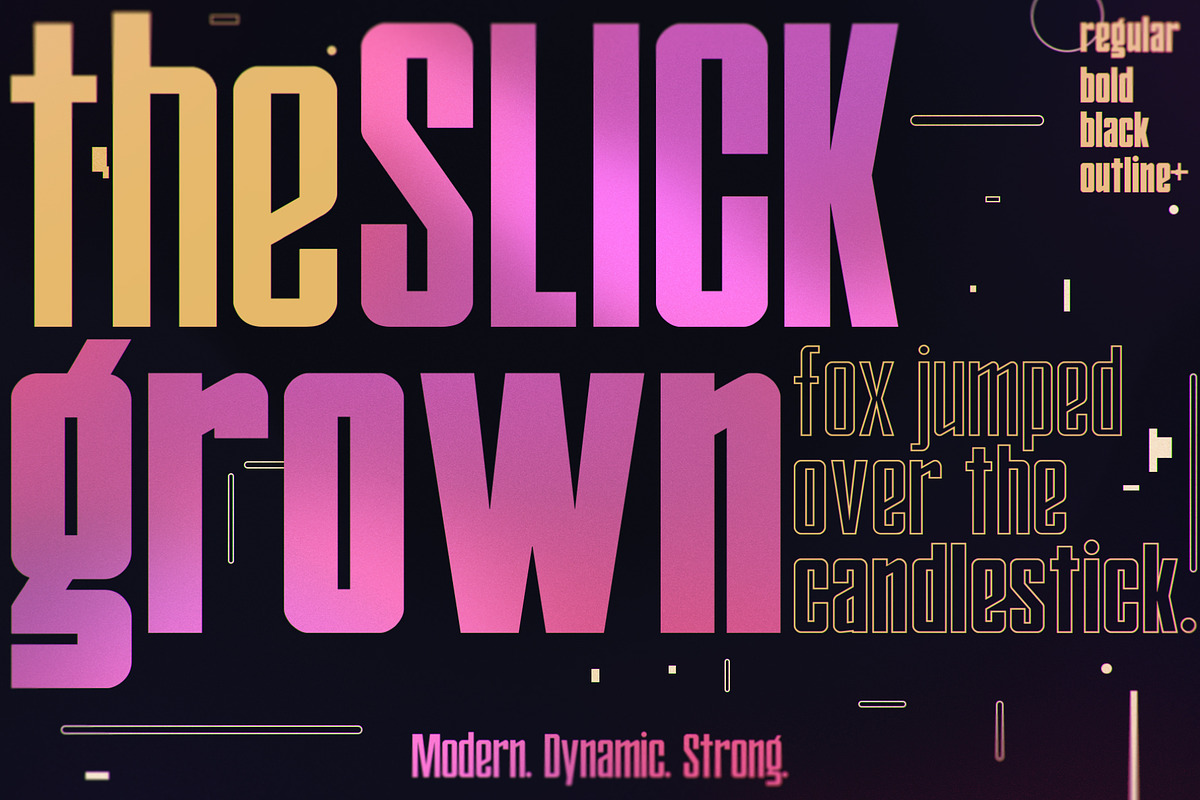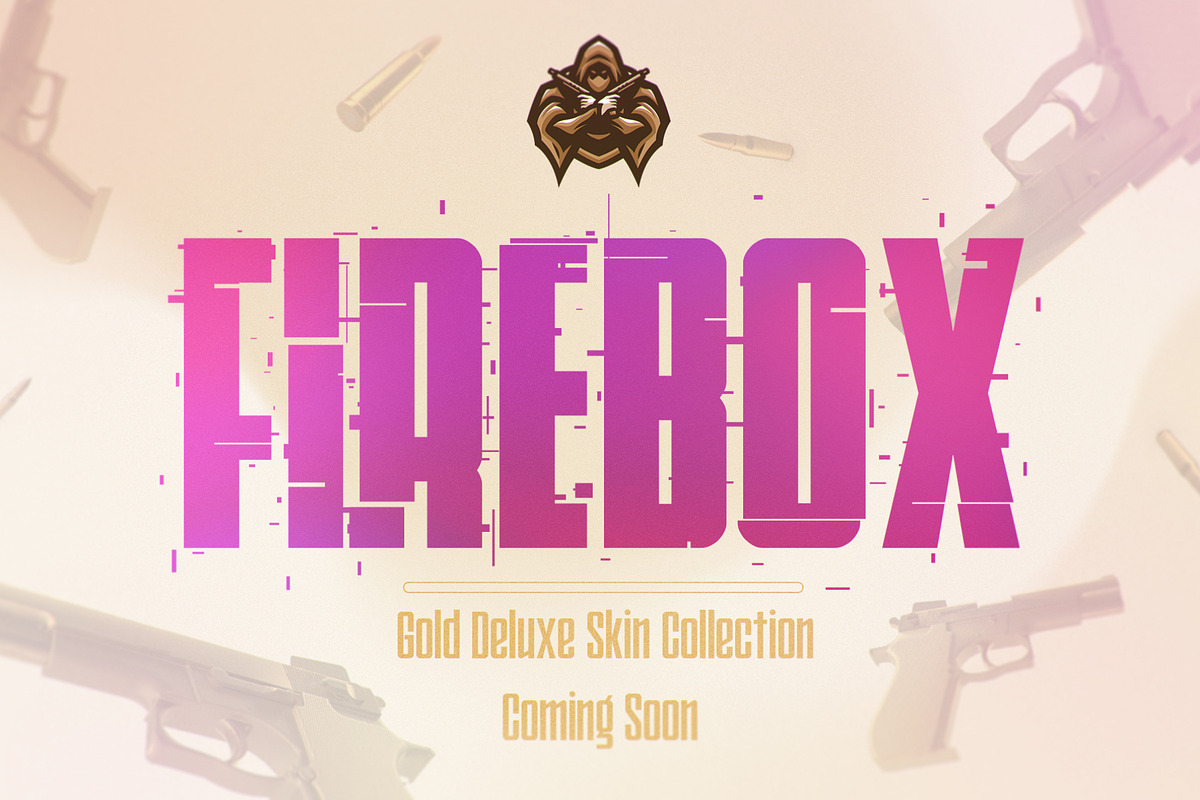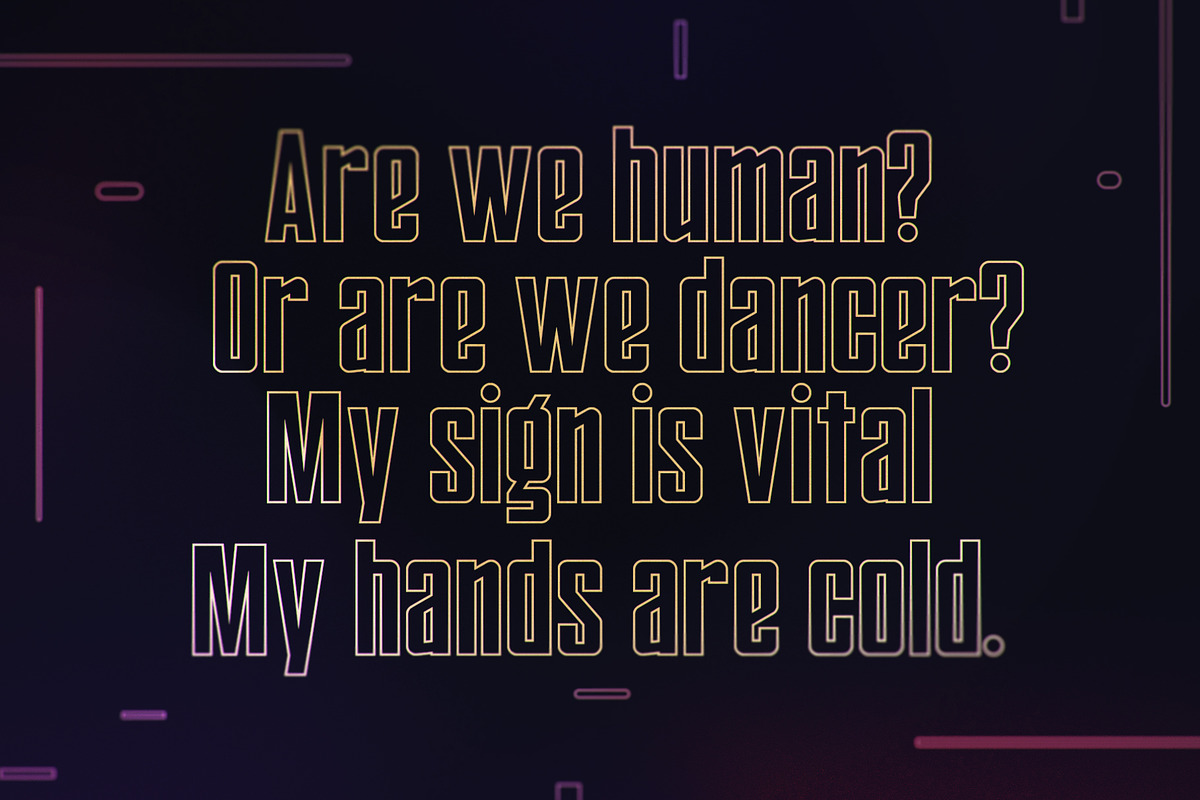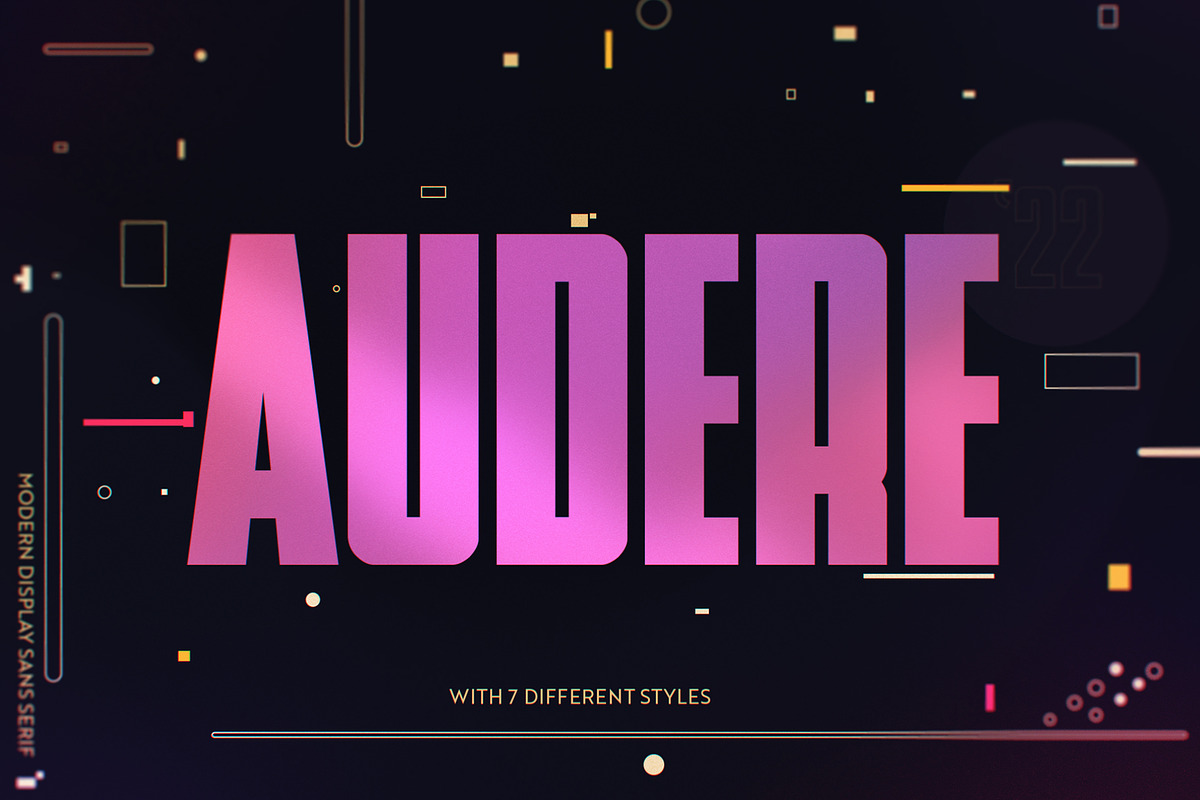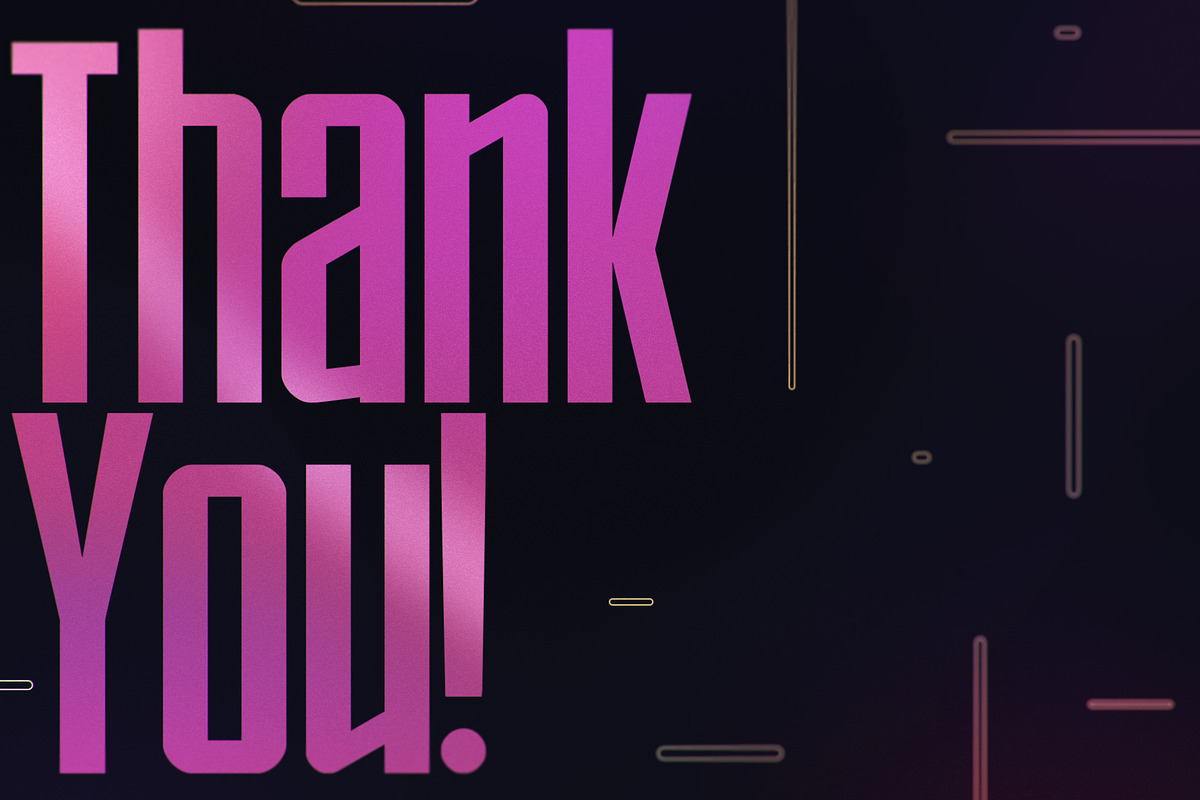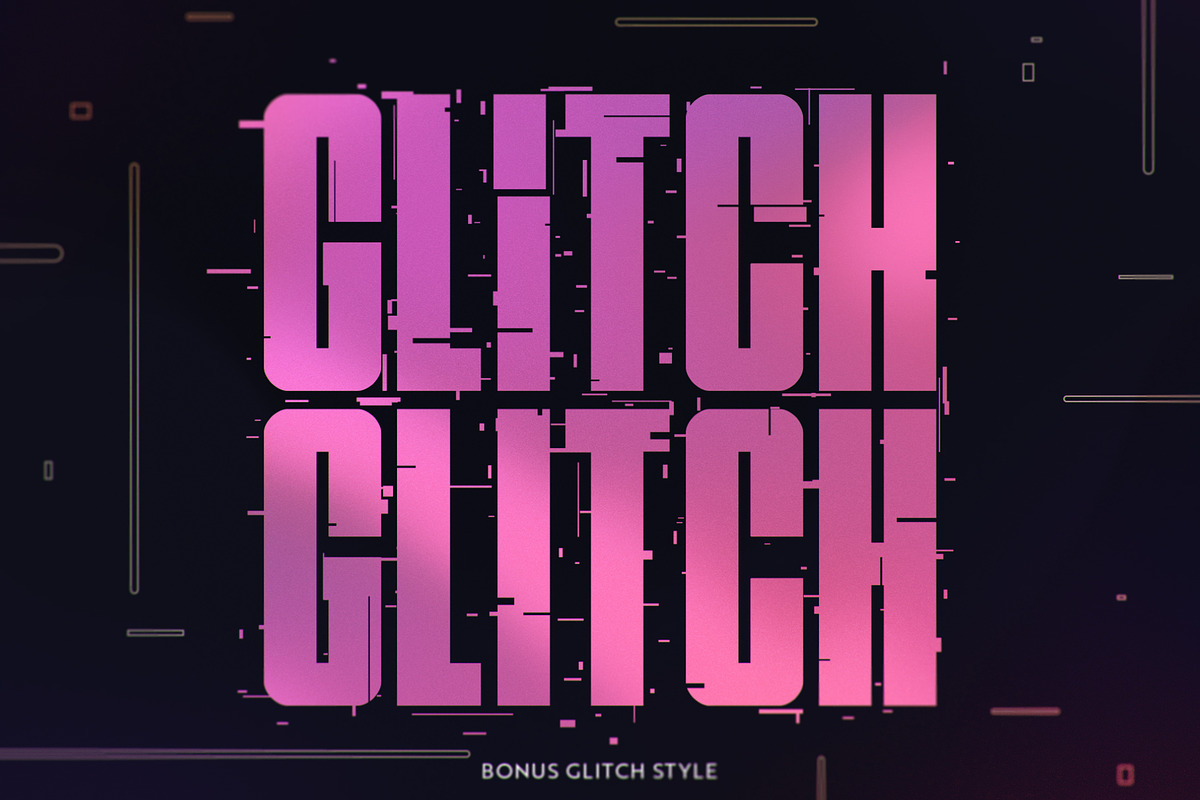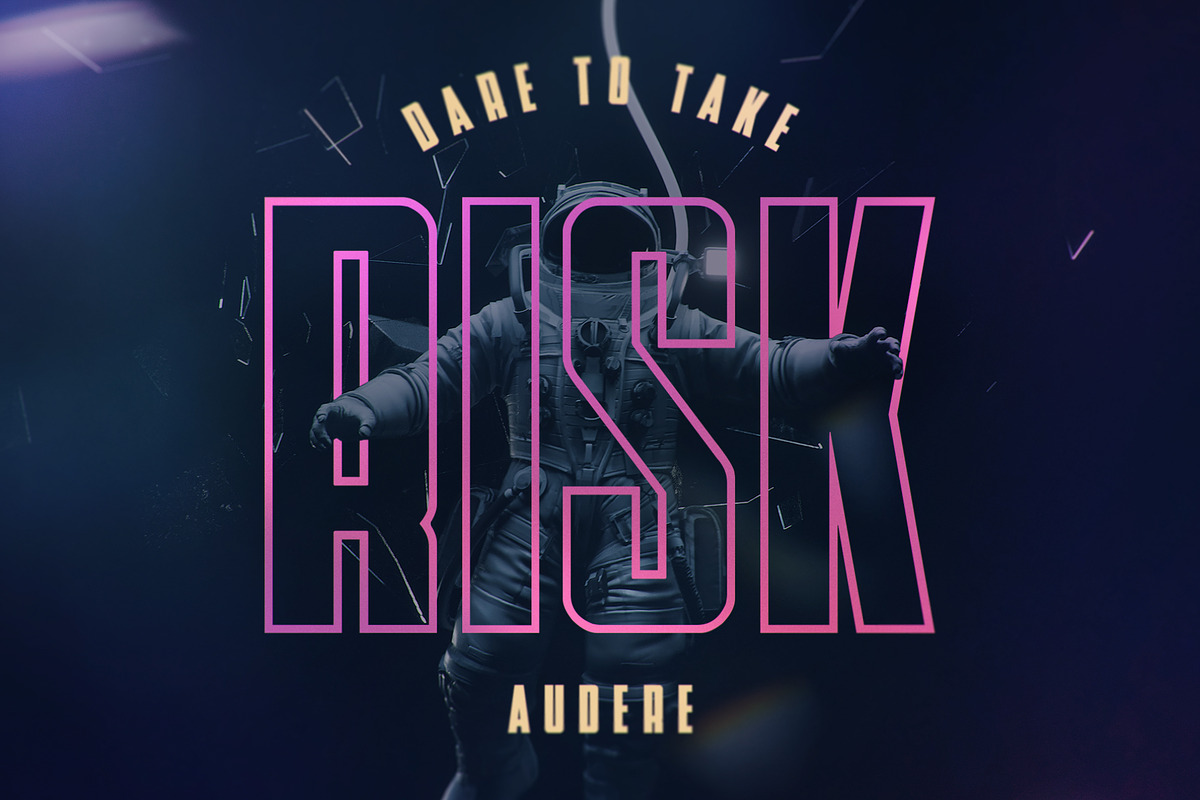
AUDERE | Bold Display Font
Dare to take the risk!
Audere is a carefully crafted Modern Display font that is perfect for a bold and impactful design. Inspired from a futuristic style, Audere is dynamic and flexible for both retro and modern pieces. The font includes 2 different styles—Regular and Outline, both with regular, bold, and black weights.
Audere also includes a BONUS style, Glitch. Glitch can be very useful for type-and-go designs because of its style-ready glyphs! It includes all-caps characters to create more alternates for every letter.